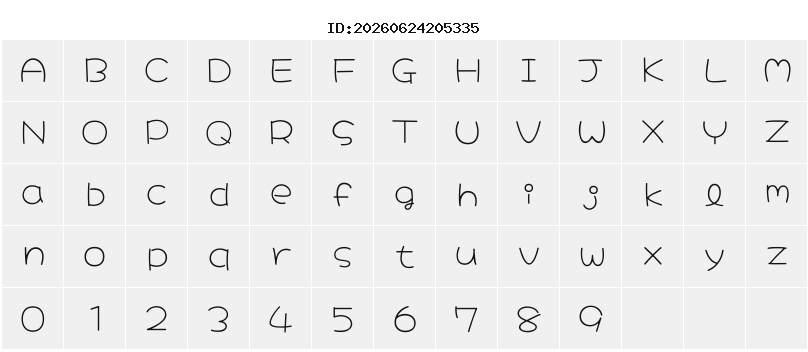
大波浪圓體 CJK TC-Light Preview
• Font Name: 大波浪圓體 CJK TC-Light
• Font Style: Light
• Full Font Name: 大波浪圓體 CJK TC-Light
• Designer: Max Yao
• Manufacturer: Max-Everyday
About 大波浪圓體 CJK TC-Light.ttf
大波浪圓體 CJK TC-Light.ttf is a modern, elegant sans-serif font designed for ultimate readability and visual harmony. Perfect for branding, headlines, web design, and print materials.